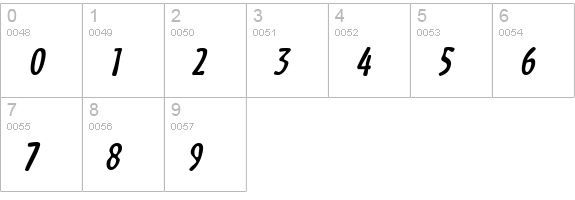
Cafecoco BoldItalic Font Details
Cafecoco BoldItalic is a visually stunning font that exudes confidence, elegance, and a touch of playfulness. Its bold and italicized design captures attention and adds a dynamic flair to any project. Whether you're designing a logo, creating eye-catching headlines, or crafting a stylish invitation, Cafecoco BoldItalic will surely make a lasting impression. With its distinctive curves and refined strokes, this font strikes the perfect balance between sophistication and creativity. Each character is meticulously crafted, resulting in a harmonious combination of boldness and elegance. The slanted italic style adds a sense of movement and adds a unique touch to your designs. One of the best things about Cafecoco BoldItalic is that it is freely available to download at FontsMarket.com. This means that you can easily access this captivating font and use it in your personal and commercial projects without any cost. The availability of this font for free allows designers, entrepreneurs, and creatives to explore its potential and unleash their creativity without any constraints. Whether you're designing a website, creating stunning graphics, or crafting captivating social media posts, Cafecoco BoldItalic will elevate your designs to a whole new level. Its versatility makes it suitable for a wide range of projects, from fashion and beauty to food and beverage. This font effortlessly adapts to different contexts and adds a touch of sophistication to any visual composition. When you choose Cafecoco BoldItalic, you're not only selecting a visually appealing font but also embracing the freedom to create without limits. So go ahead, unleash your creativity, and make a bold statement with Cafecoco BoldItalic - the font that combines elegance, creativity, and the freedom to design. Take advantage of its availability for free at FontsMarket.com and let your imagination run wild.